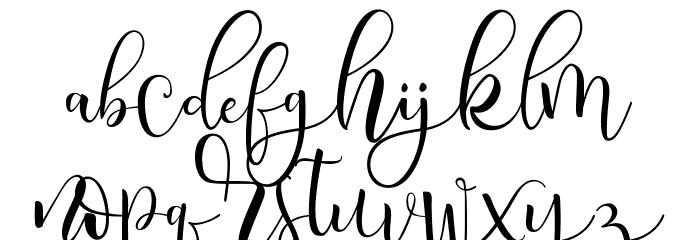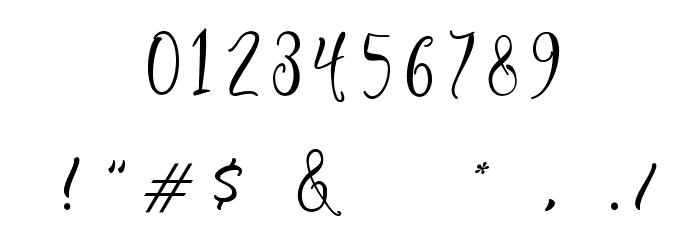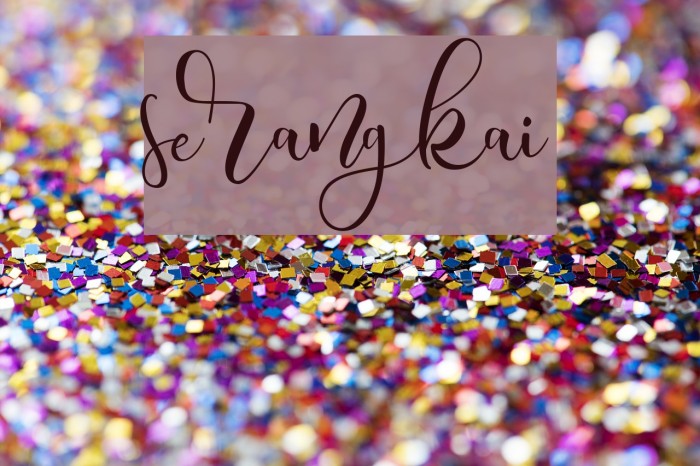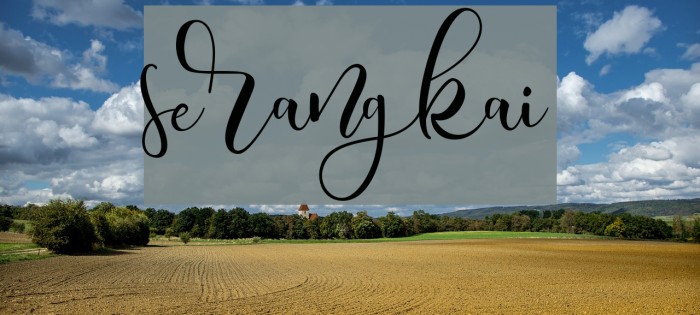
serangkai Font
This font features a unique blend of decorative and handwritten styles, offering a whimsical and artistic flair. The uppercase letters are bold and slightly condensed, with playful curves and varying line thickness that add a touch of elegance. The lowercase letters are more fluid and script-like, with intricate loops and swashes that create a sense of movement and grace. The numbers and special characters maintain the same artistic style, ensuring consistency across all elements. This font is perfect for projects that require a personal and creative touch, such as invitations, greeting cards, and branding materials.
A decorative and handwritten font with playful curves and elegant swashes.
- Proposed Projects: Ideal for invitations, greeting cards, branding, and creative projects.